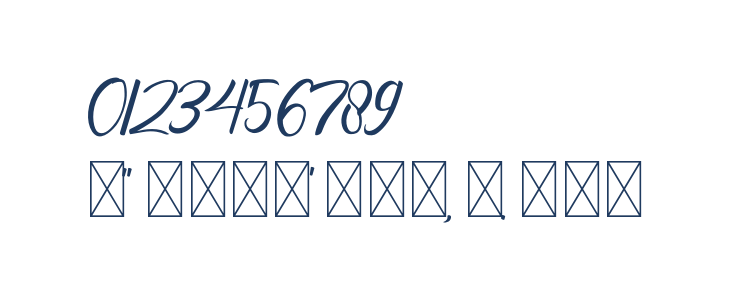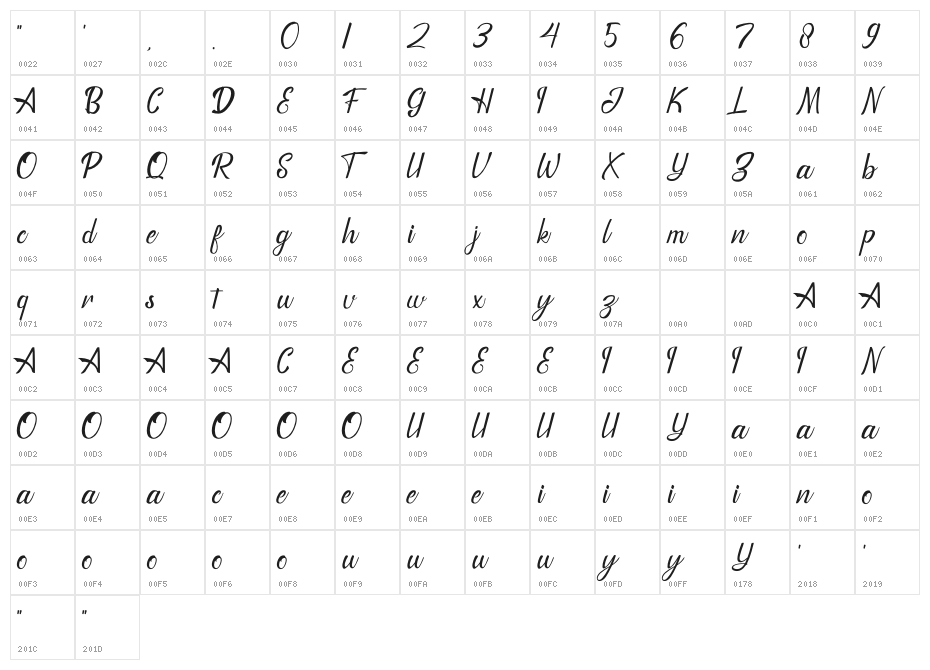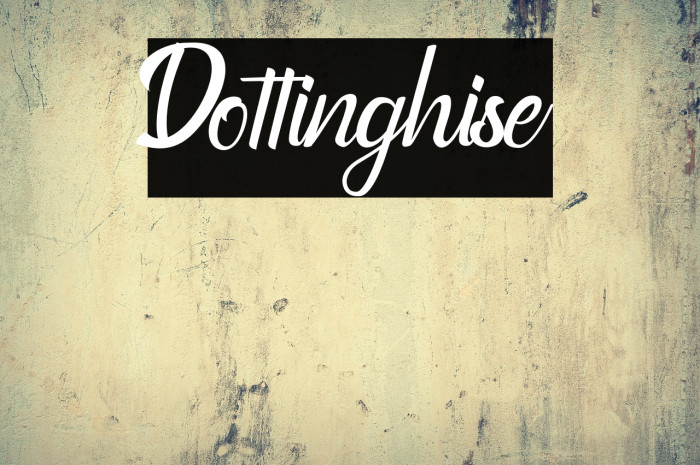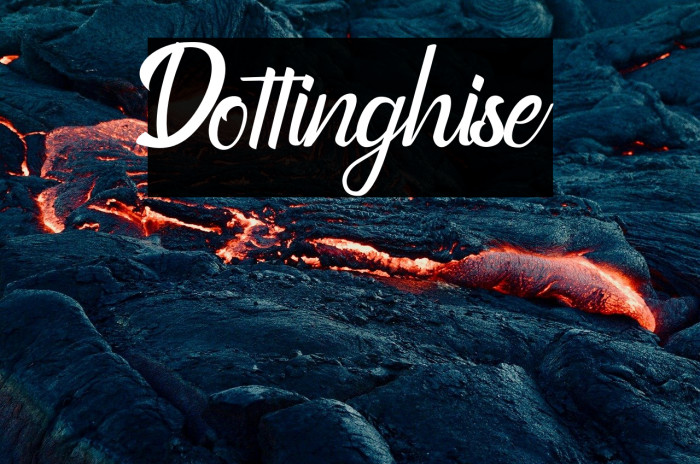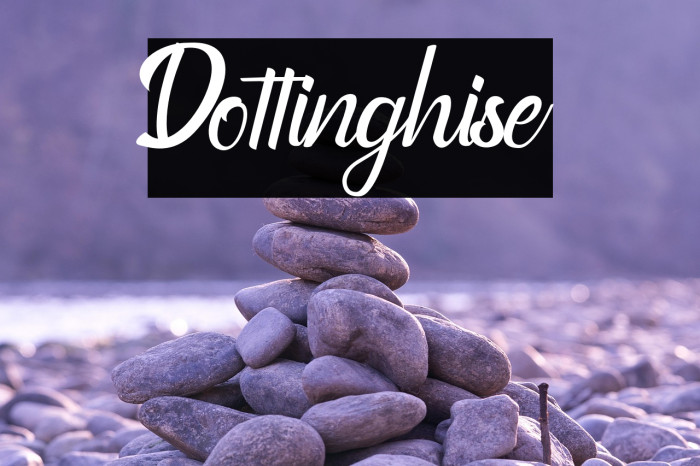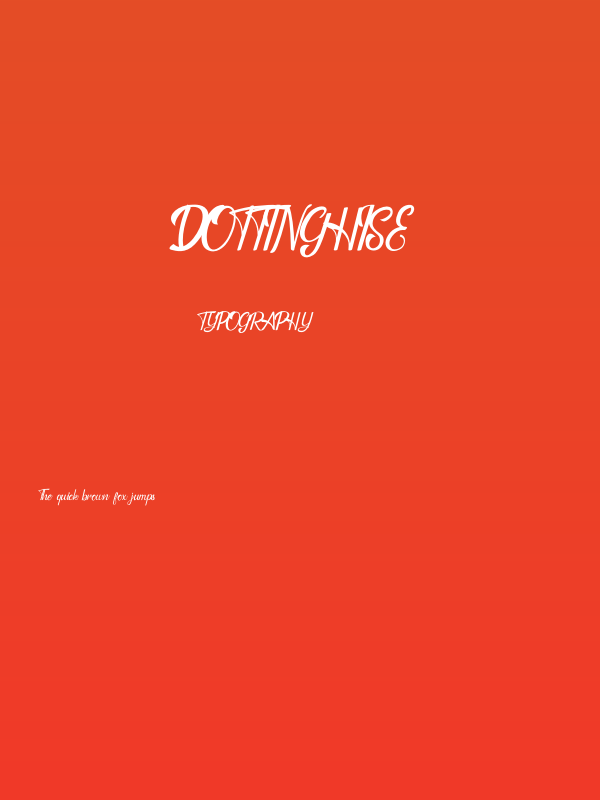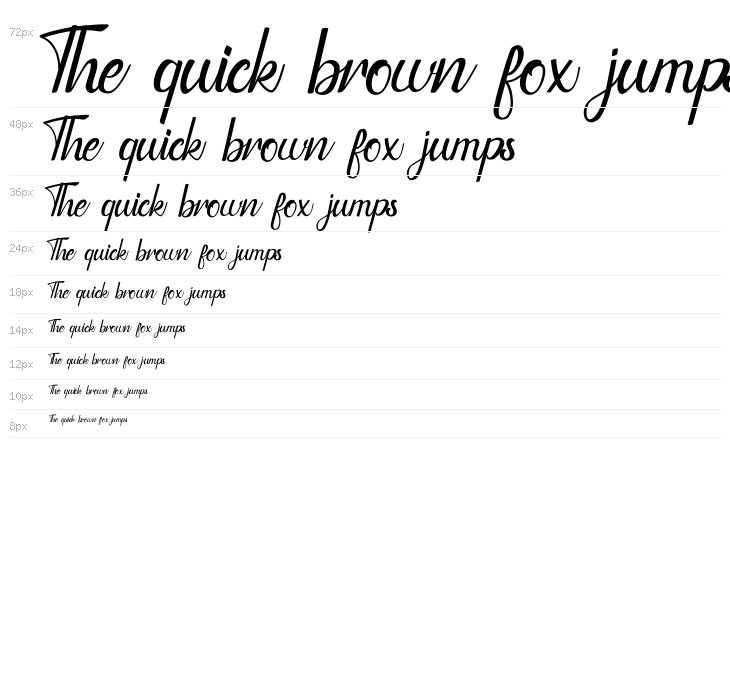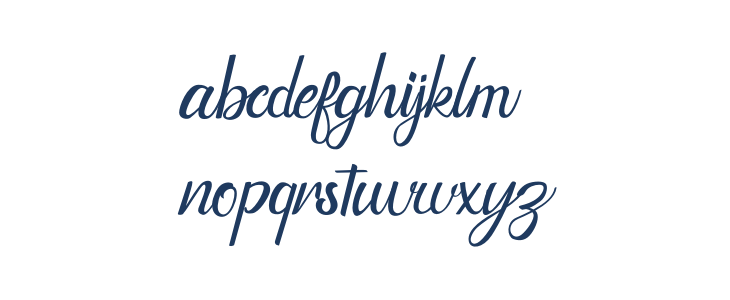
Dottinghise Font
Dottinghise Description
This font features a dynamic and elegant script style, characterized by its fluid, cursive strokes and a sense of motion. The uppercase letters are bold and sweeping, with a distinctive flair that adds a touch of sophistication. The lowercase letters maintain a consistent flow, enhancing readability while retaining an artistic quality. Numbers are crafted with the same attention to detail, ensuring they blend seamlessly with the alphabet. The overall design is both stylish and versatile, making it suitable for a variety of applications where a personal, handwritten touch is desired.
Overall StyleElegant
Use CaseLogos, Invitations, Decorative text
Proposed ProjectsIdeal for wedding invitations, greeting cards, branding projects, and elegant packaging designs.